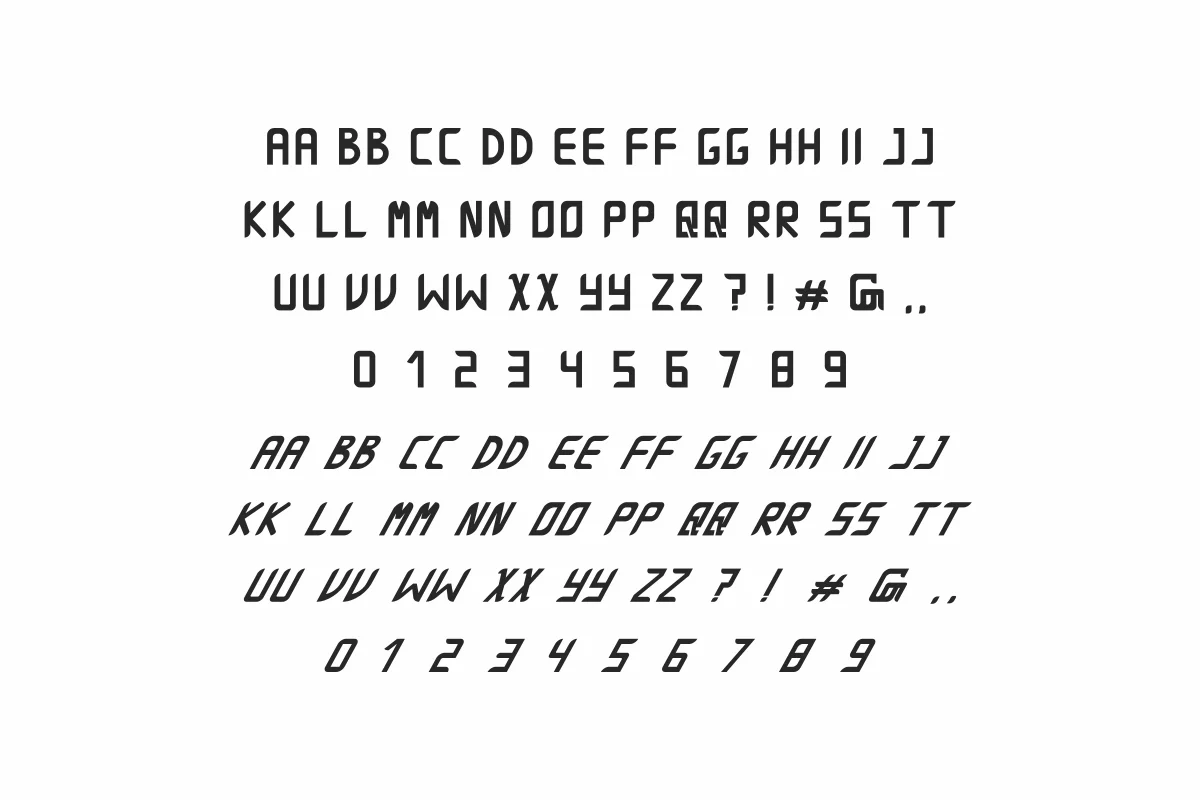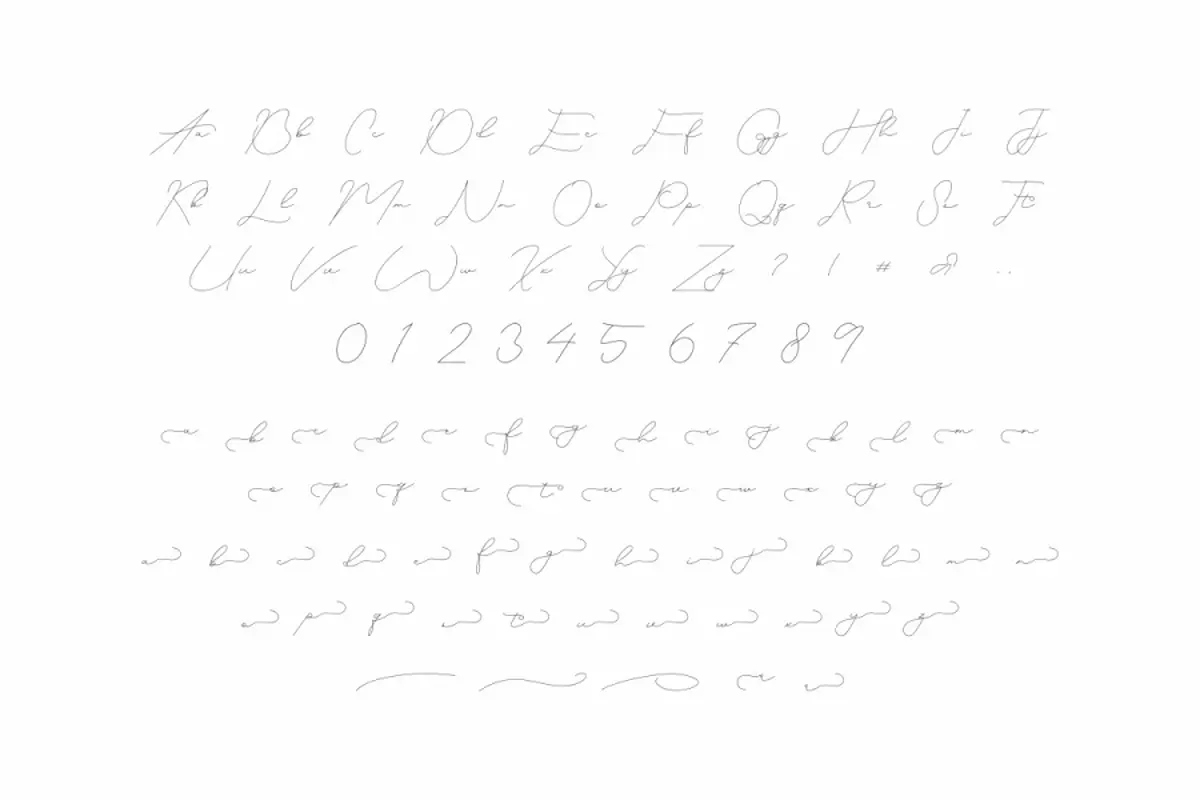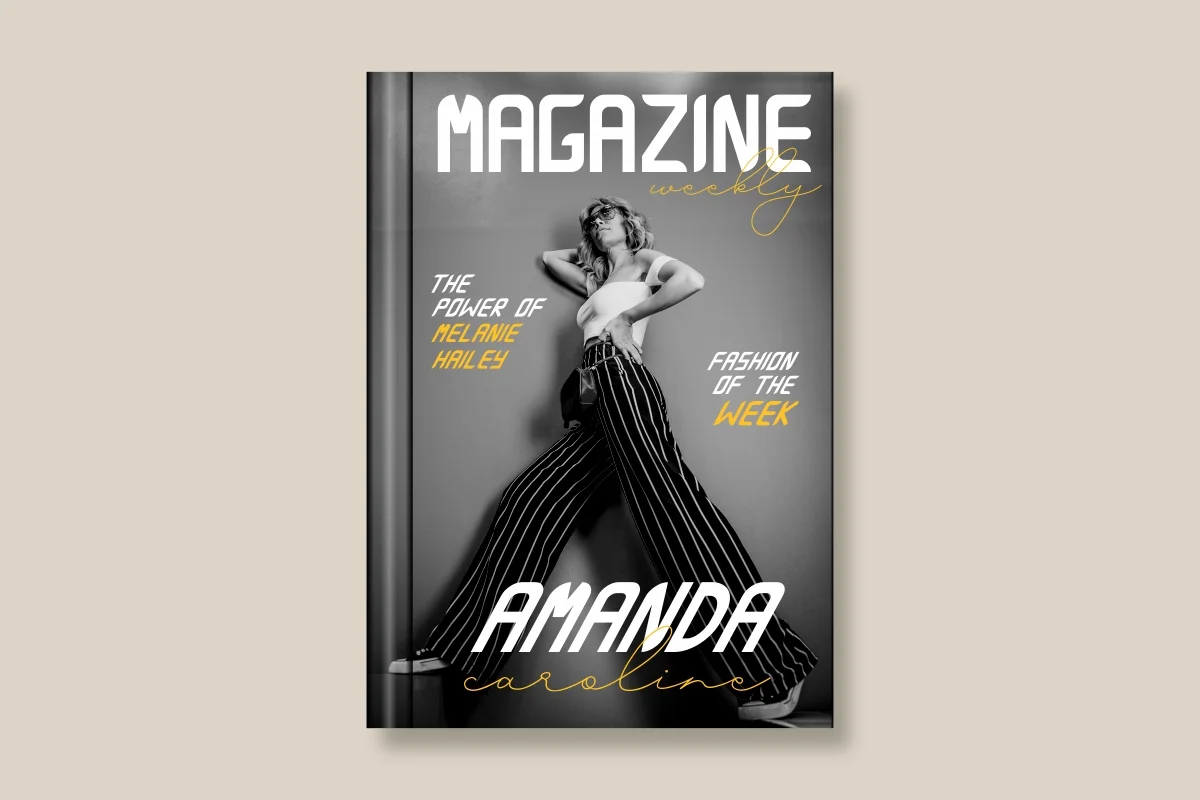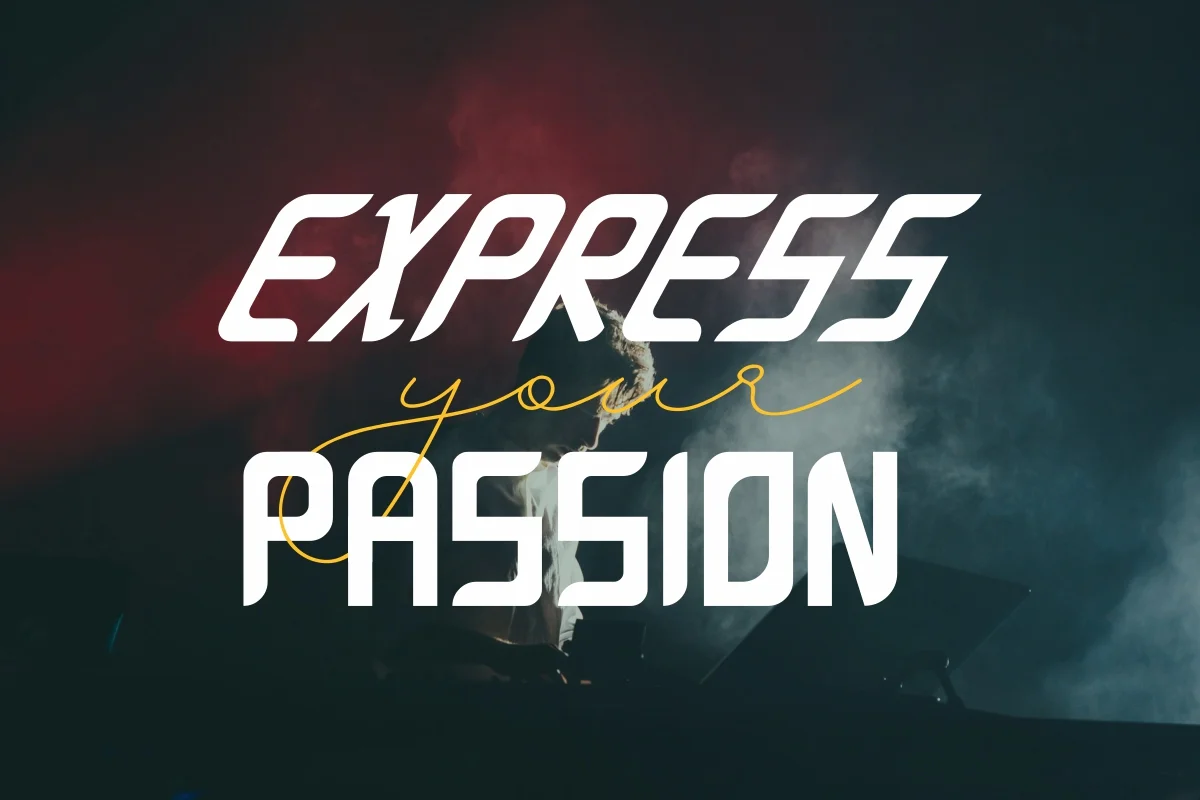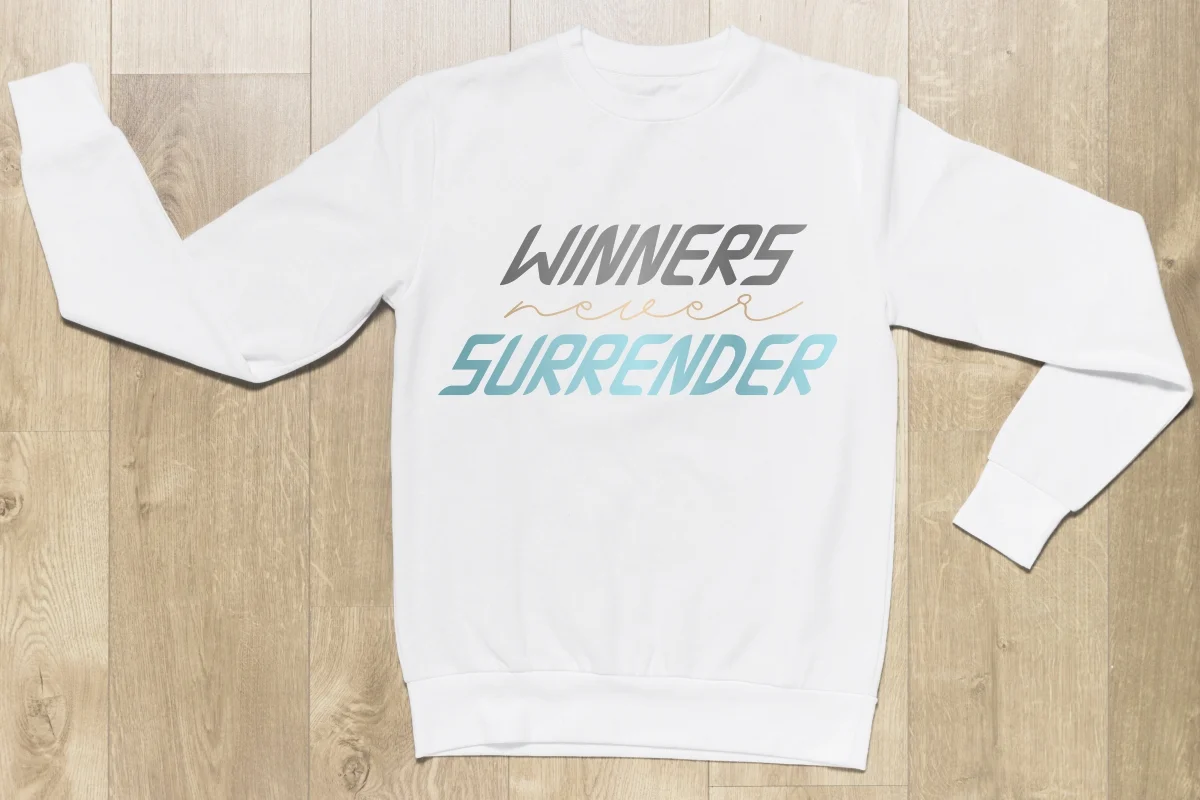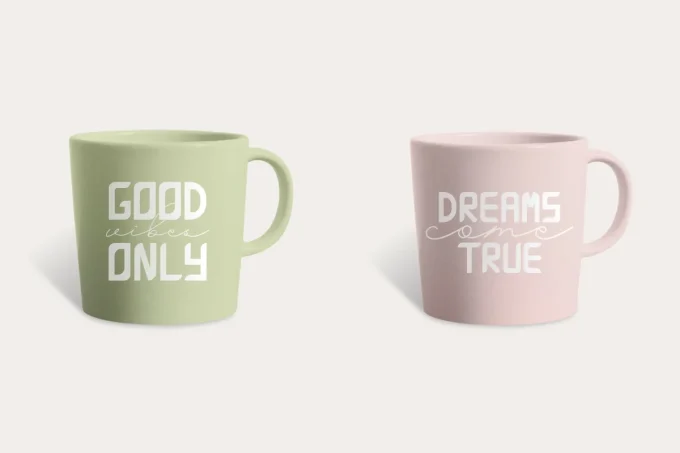
Agrandize is a font duo font famliy with three different styles. Originally made by NihStudio Font Designers : Widi and Sarah. On the package you will get :
The Agrandize has 3 styles : Regular, Bold and Script (signature)